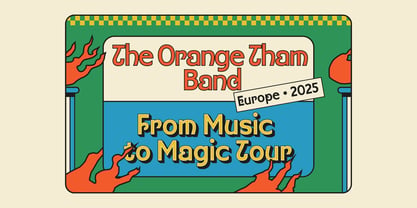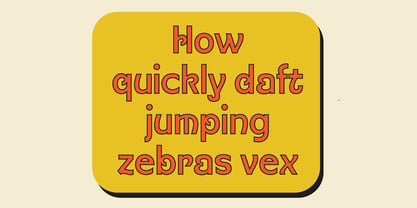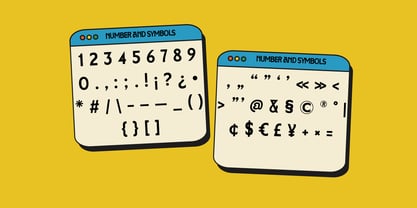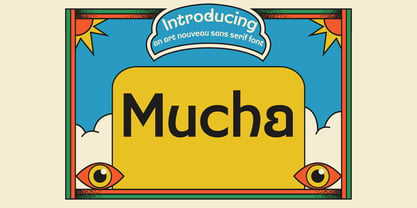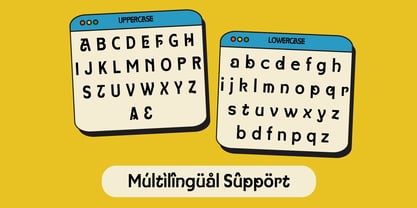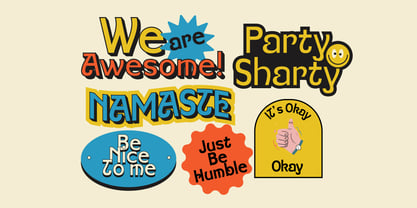
Mucha
by PB Type
The Mucha Font Family was designed by Ilham Prambudiharjo Raharjo and published by PB Type. Mucha contains 1 styles. More about this family
Mucha is a striking sans serif font that seamlessly blends modern minimalism with the flowing elegance of Art Nouveau. Inspired by the timeless works of Alphonse Mucha, this typeface captures the spirit of organic curves and decorative detail while maintaining a clean, contemporary edge. Ideal for branding, posters, editorial design, and digital use, Mucha adds a touch of artistic flair without sacrificing readability. Whether you're aiming for sophistication or a bold creative statement, Mucha delivers style with substance—elevating any project with a unique, vintage-inspired charm.
Designers: Ilham Prambudiharjo Raharjo
Foundry: PB Type